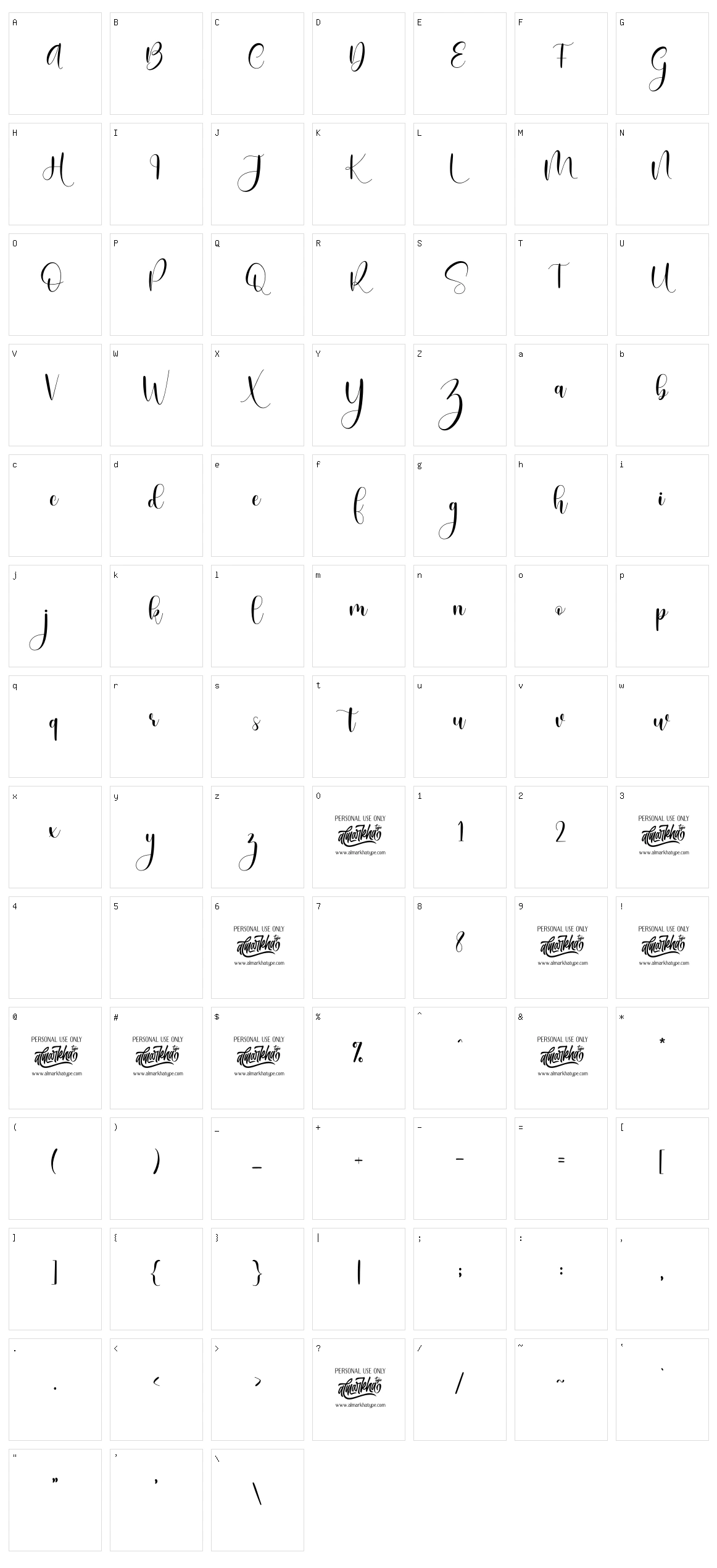
The free font Sweetie Moment is carefully designed by Almarkhatype, showcasing a thoughtful balance of creativity and usability and falls under the Script font style. When you download the ZIP file, it contains only 602.02 KB of font files, making it lightweight and quick to download. Please review the license details below to understand permitted usage and distribution rights. If license information is not available, we recommend using this font for personal projects only or contacting the author directly for commercial usage permissions.